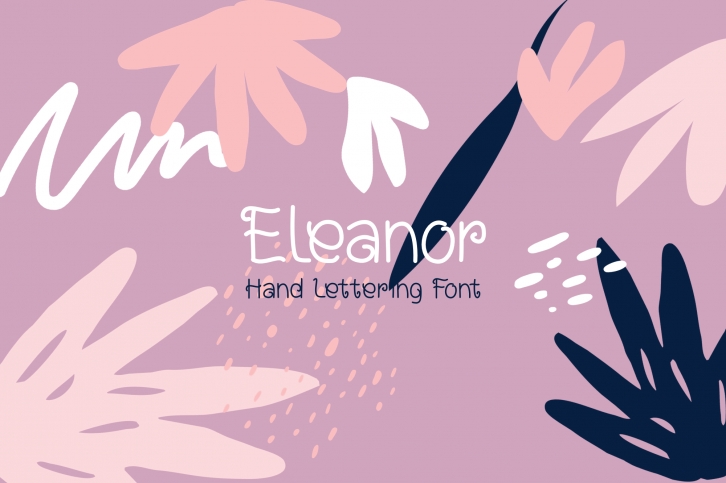
Eleanor is a delicate and elegant handwritten font. Its distinct and well balanced letters make this font a masterpiece. Fall in love with its incredibly versatile style and use it to create spectacular designs!